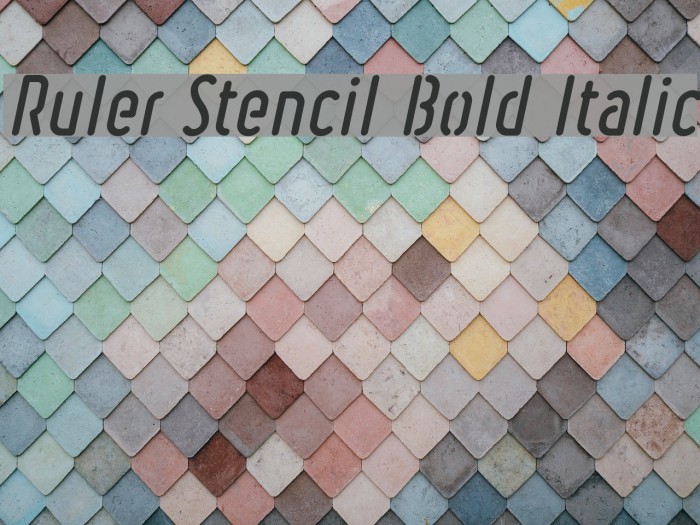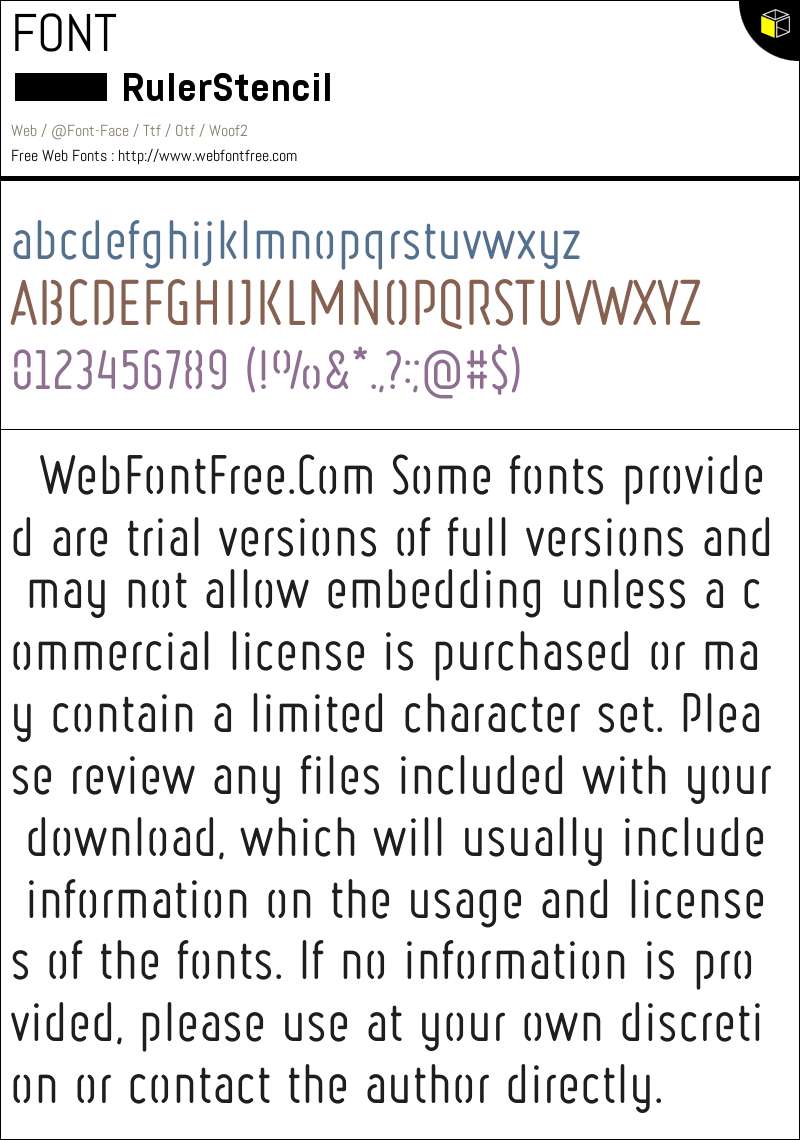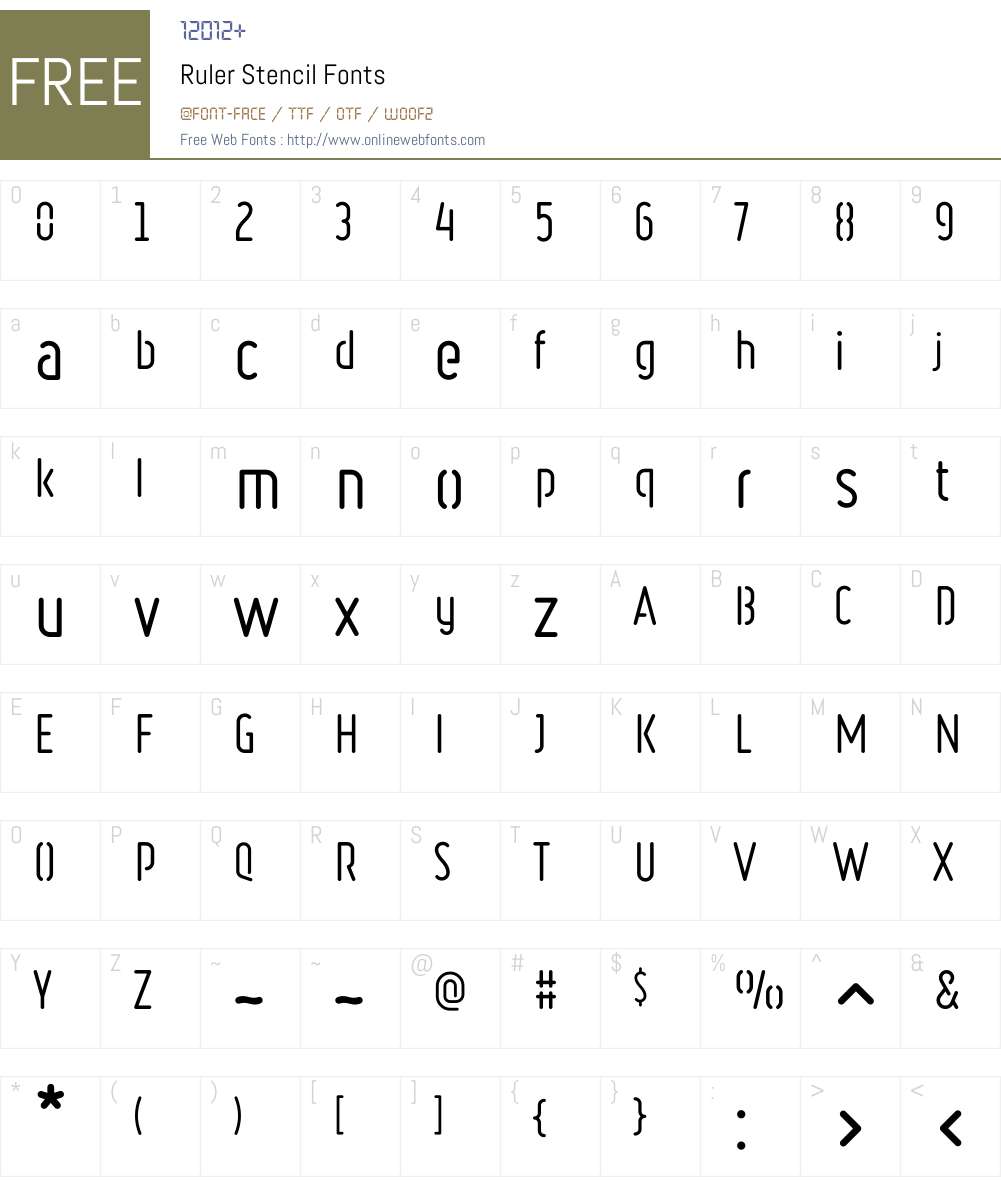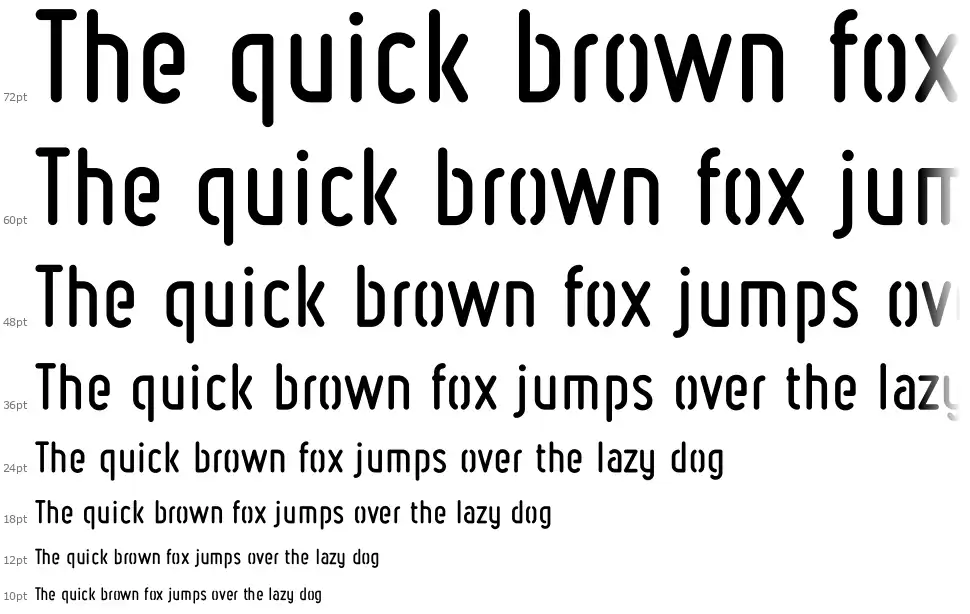
Ruler Stencil Font . The ruler stencil font has been downloaded 7,947. Ruler stencil is a development of the basic ruler font to create a simulation of the stencil rulers used to. Ruler stencil is a development of the basic ruler font to create a simulation of the stencil rulers used to draw predefined fonts, usually on blueprints. Every font is free to download! ️ customize your own preview on ffonts.net to make sure it`s the right one for your designs. 100k+ visitors in the past month ️ this font has been downloaded 100+ times. Download and install the ruler stencil font for free from ffonts.net. The ruler stencil font contains 380 beautifully designed characters. Click to find the best 15 free fonts in the ruler style. 12 rows download and install the ruler stencil font by levi szekeres.
Every font is free to download! ️ this font has been downloaded 100+ times. 12 rows download and install the ruler stencil font by levi szekeres. Download and install the ruler stencil font for free from ffonts.net. ️ customize your own preview on ffonts.net to make sure it`s the right one for your designs. 100k+ visitors in the past month Click to find the best 15 free fonts in the ruler style. Ruler stencil is a development of the basic ruler font to create a simulation of the stencil rulers used to draw predefined fonts, usually on blueprints. Ruler stencil is a development of the basic ruler font to create a simulation of the stencil rulers used to. The ruler stencil font contains 380 beautifully designed characters.
Ruler Stencil Font The ruler stencil font contains 380 beautifully designed characters. 12 rows download and install the ruler stencil font by levi szekeres. The ruler stencil font has been downloaded 7,947. Ruler stencil is a development of the basic ruler font to create a simulation of the stencil rulers used to. Every font is free to download! ️ this font has been downloaded 100+ times. The ruler stencil font contains 380 beautifully designed characters. 100k+ visitors in the past month Download and install the ruler stencil font for free from ffonts.net. Ruler stencil is a development of the basic ruler font to create a simulation of the stencil rulers used to draw predefined fonts, usually on blueprints. Click to find the best 15 free fonts in the ruler style. ️ customize your own preview on ffonts.net to make sure it`s the right one for your designs.
Ruler Stencil font Font Tr Ruler Stencil Font 12 rows download and install the ruler stencil font by levi szekeres. Ruler stencil is a development of the basic ruler font to create a simulation of the stencil rulers used to draw predefined fonts, usually on blueprints. Every font is free to download! ️ customize your own preview on ffonts.net to make sure it`s the right one for your. Ruler Stencil Font.
Ruler Stencil Bold Font Ruler Stencil Font The ruler stencil font has been downloaded 7,947. Ruler stencil is a development of the basic ruler font to create a simulation of the stencil rulers used to. Ruler stencil is a development of the basic ruler font to create a simulation of the stencil rulers used to draw predefined fonts, usually on blueprints. Click to find the best 15. Ruler Stencil Font.
Download free Ruler Stencil Bold font Ruler Stencil Font Ruler stencil is a development of the basic ruler font to create a simulation of the stencil rulers used to draw predefined fonts, usually on blueprints. Ruler stencil is a development of the basic ruler font to create a simulation of the stencil rulers used to. 100k+ visitors in the past month 12 rows download and install the ruler stencil. Ruler Stencil Font.
Ruler Stencil Font Free Download Ruler Stencil Font ️ customize your own preview on ffonts.net to make sure it`s the right one for your designs. Ruler stencil is a development of the basic ruler font to create a simulation of the stencil rulers used to. 12 rows download and install the ruler stencil font by levi szekeres. Download and install the ruler stencil font for free from ffonts.net.. Ruler Stencil Font.
Ruler Stencil Font 1001 Free Fonts Ruler Stencil Font Every font is free to download! Download and install the ruler stencil font for free from ffonts.net. Click to find the best 15 free fonts in the ruler style. Ruler stencil is a development of the basic ruler font to create a simulation of the stencil rulers used to draw predefined fonts, usually on blueprints. The ruler stencil font contains. Ruler Stencil Font.
Ruler Stencil Thin Font Ruler Stencil Font The ruler stencil font contains 380 beautifully designed characters. ️ this font has been downloaded 100+ times. Click to find the best 15 free fonts in the ruler style. Every font is free to download! Download and install the ruler stencil font for free from ffonts.net. Ruler stencil is a development of the basic ruler font to create a simulation. Ruler Stencil Font.
Ruler Stencil Font UpFonts Ruler Stencil Font 100k+ visitors in the past month Download and install the ruler stencil font for free from ffonts.net. Every font is free to download! ️ this font has been downloaded 100+ times. Ruler stencil is a development of the basic ruler font to create a simulation of the stencil rulers used to draw predefined fonts, usually on blueprints. ️ customize your. Ruler Stencil Font.
Ruler Stencil 2.32 November 17, 2016 Fonts Free Download Ruler Stencil Font The ruler stencil font contains 380 beautifully designed characters. ️ customize your own preview on ffonts.net to make sure it`s the right one for your designs. ️ this font has been downloaded 100+ times. Ruler stencil is a development of the basic ruler font to create a simulation of the stencil rulers used to draw predefined fonts, usually on blueprints.. Ruler Stencil Font.
Ruler Stencil Thin Font Ruler Stencil Font 100k+ visitors in the past month Download and install the ruler stencil font for free from ffonts.net. Ruler stencil is a development of the basic ruler font to create a simulation of the stencil rulers used to. Every font is free to download! ️ customize your own preview on ffonts.net to make sure it`s the right one for your designs.. Ruler Stencil Font.